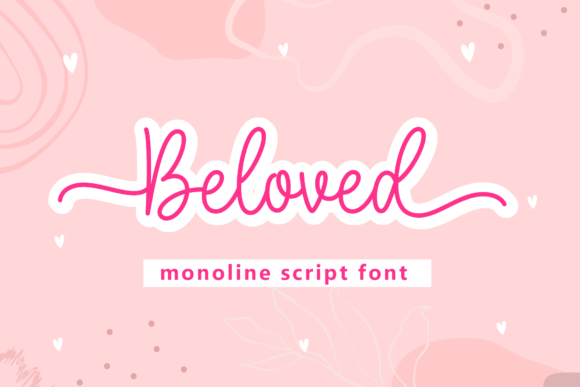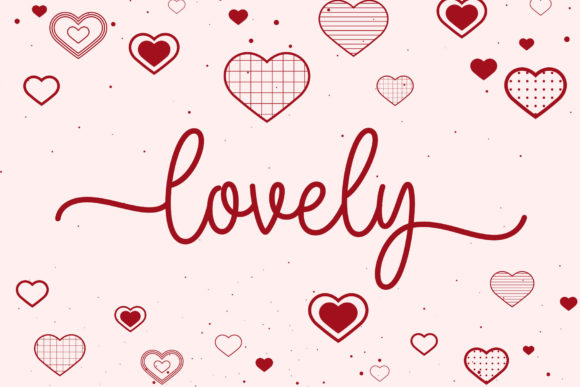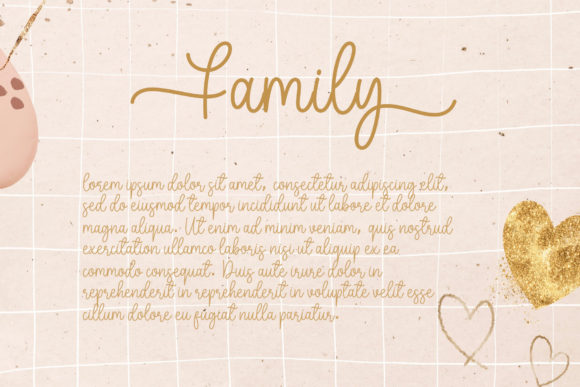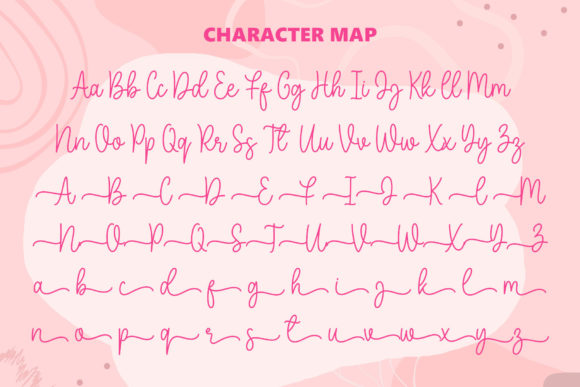
Beloved Font
Beloved is a delicate, elegant and flowing handwritten font. It has beautiful and well balanced characters and as a result, it matches a wide pool of designs. Beloved is PUA encoded which means you can access all of the glyphs and swashes with ease!